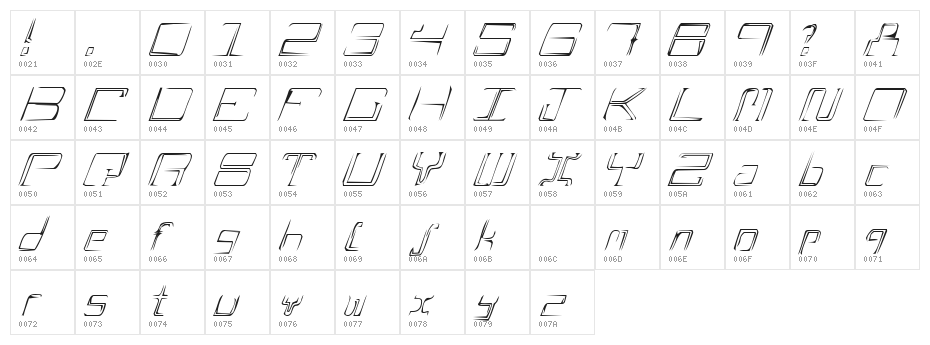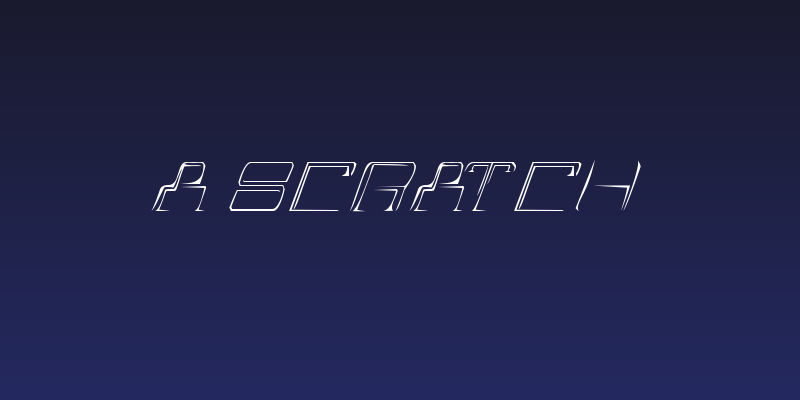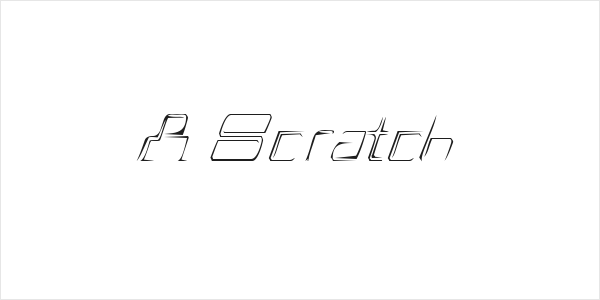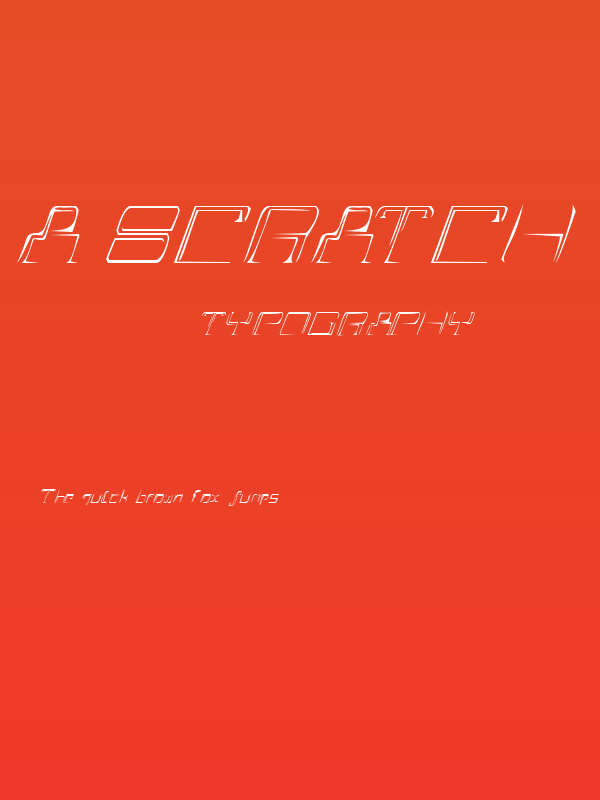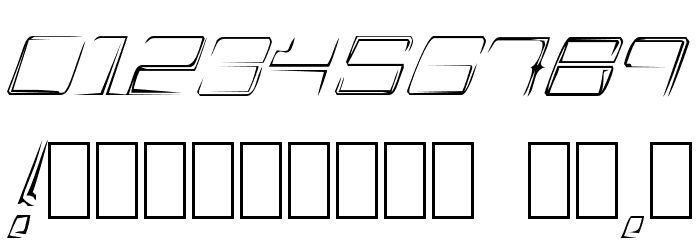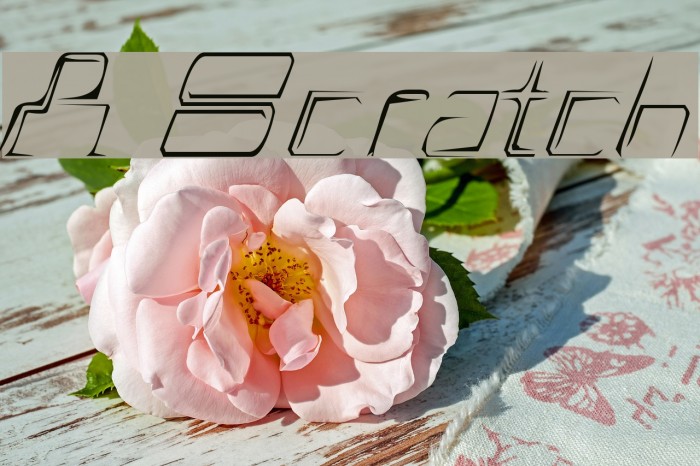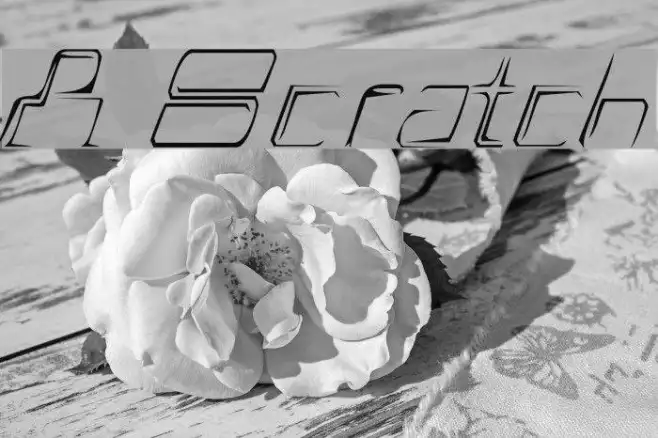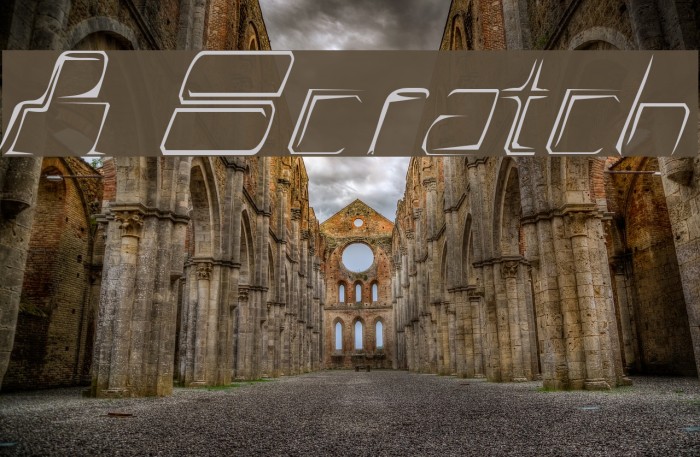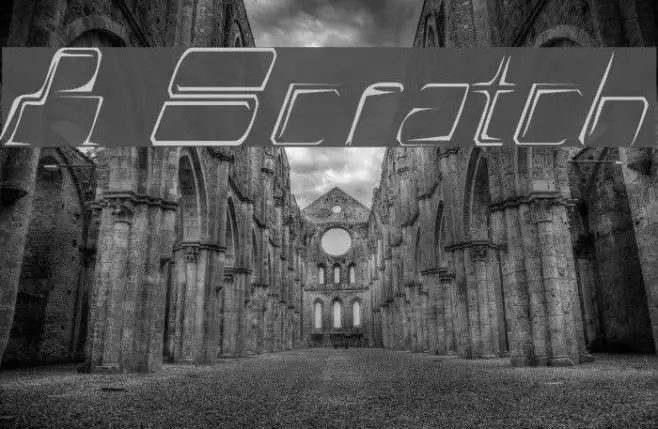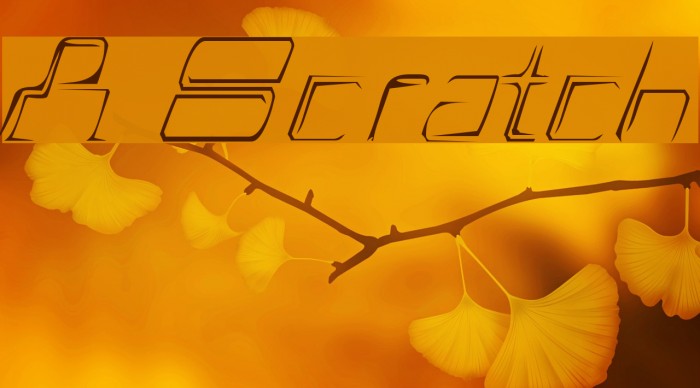
A Scratch Font
A Scratch Description
This font features a futuristic and edgy design with sharp, angular lines and a dynamic, italicized slant. The characters are constructed with a combination of thin and thick strokes, giving it a high-tech and modern appearance. The uppercase and lowercase letters maintain a consistent style, with unique geometric shapes that create a sense of motion and speed. The numerals and special characters follow the same aesthetic, ensuring uniformity across all glyphs. This font is ideal for projects that require a bold and innovative look, such as technology branding, sci-fi themes, or modern art designs.
| Proposed Projects | Ideal for technology branding, sci-fi themes, modern art designs, and innovative advertising. |